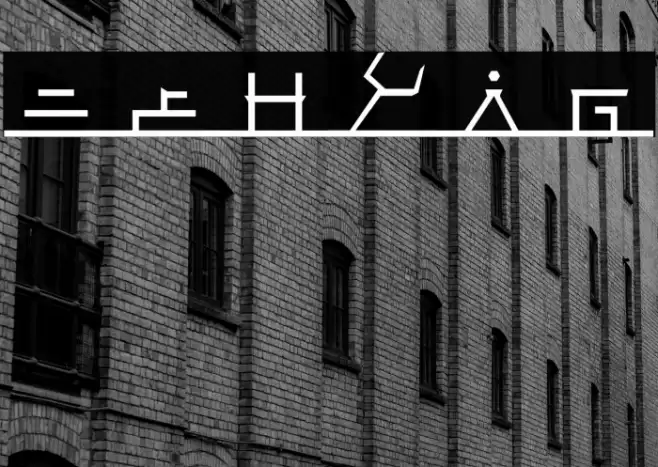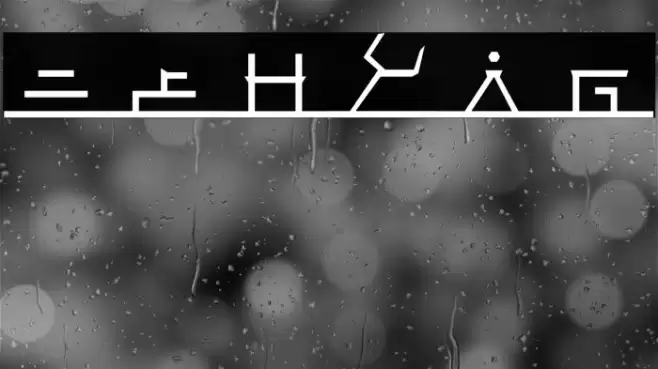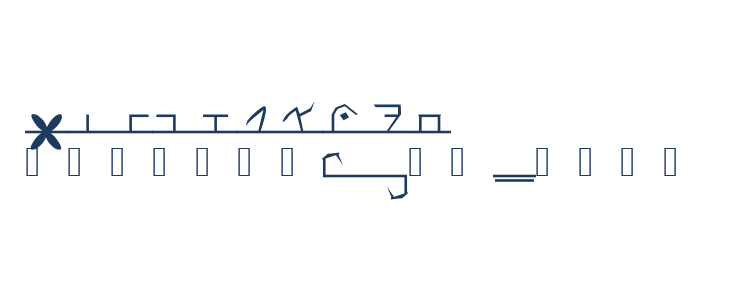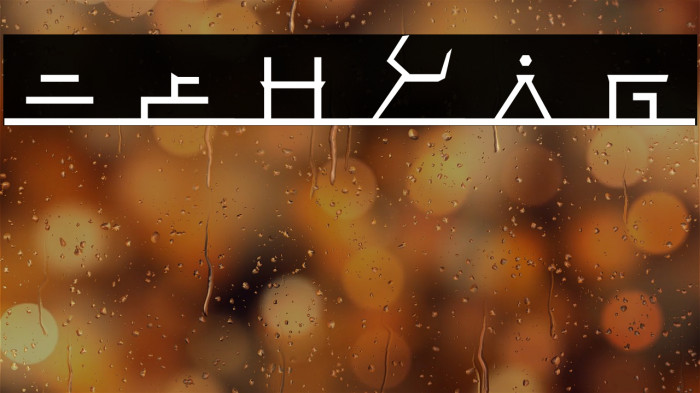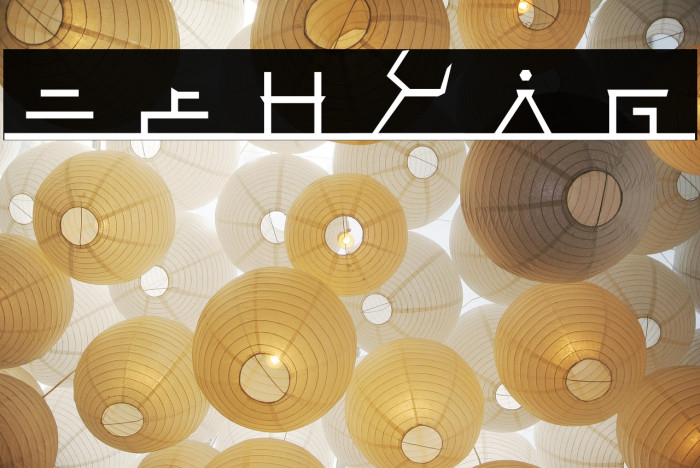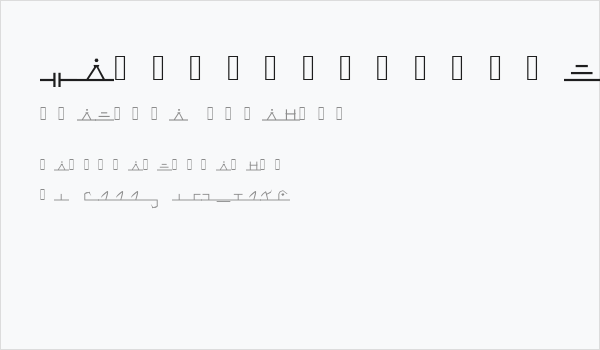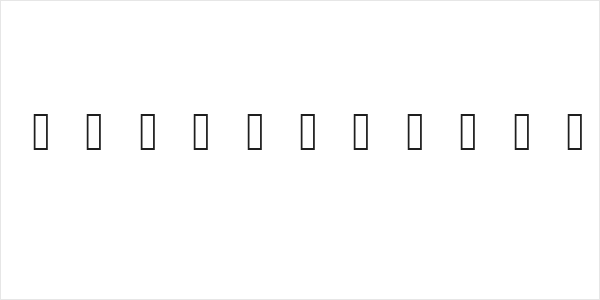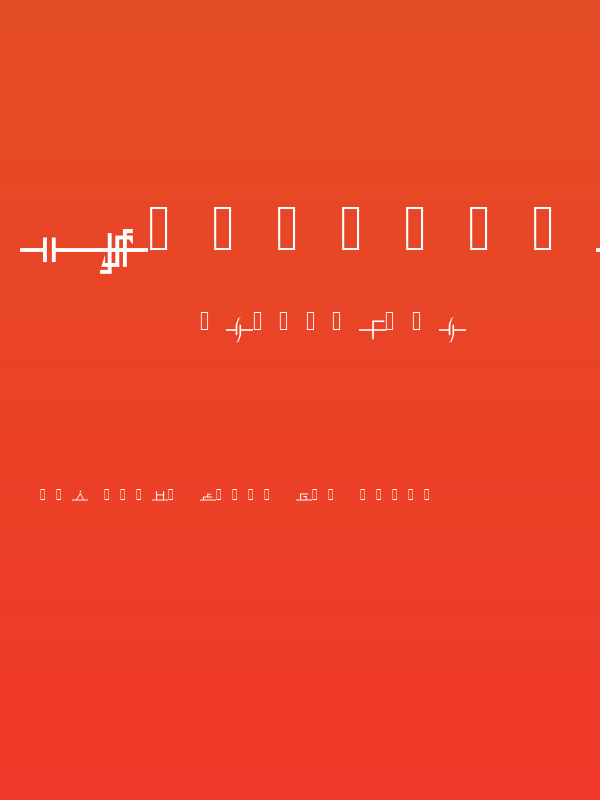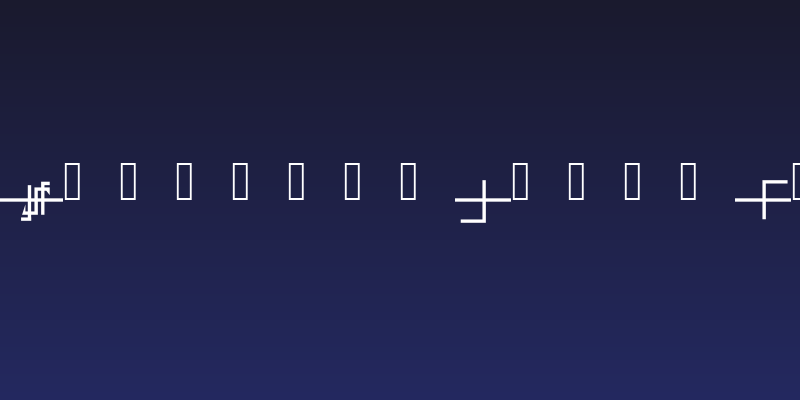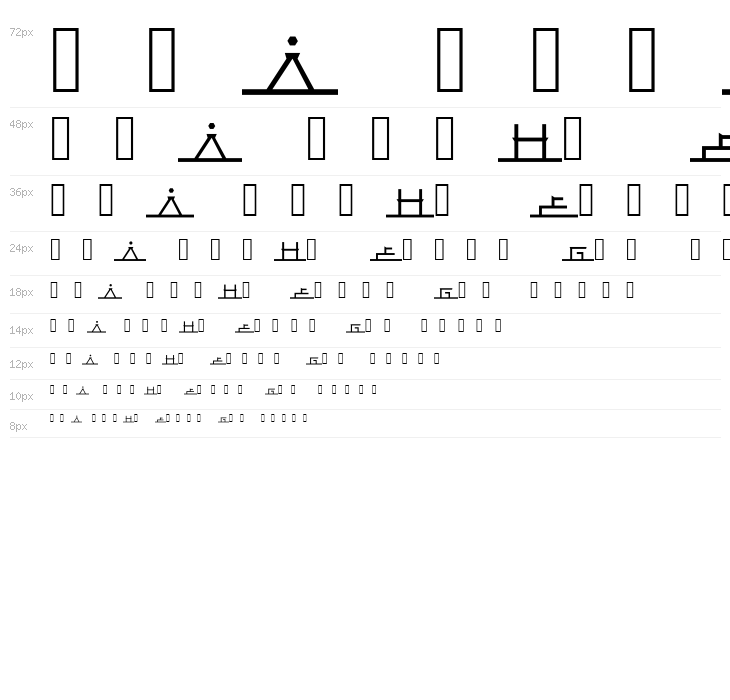
XerossHorizontal Font
XerossHorizontal Description
This font features a highly abstract and geometric design, characterized by its use of horizontal and vertical lines intersecting at sharp angles. The characters are constructed with a minimalist approach, often resembling abstract symbols rather than traditional letters. The overall appearance is futuristic and avant-garde, making it suitable for projects that require a unique and unconventional aesthetic. The font lacks curves, focusing instead on straight lines and right angles, which gives it a rigid and structured feel. The spacing between characters is wide, enhancing its readability despite its abstract nature.
A futuristic, abstract font with geometric lines and wide spacing from Dingbats fonts.
- Proposed Projects: Ideal for modern art installations, sci-fi themed designs, and experimental branding projects.
- Character Spacing: Wide
- Overall Style: Futuristic
- Use Case: Logos, Posters, Experimental Designs